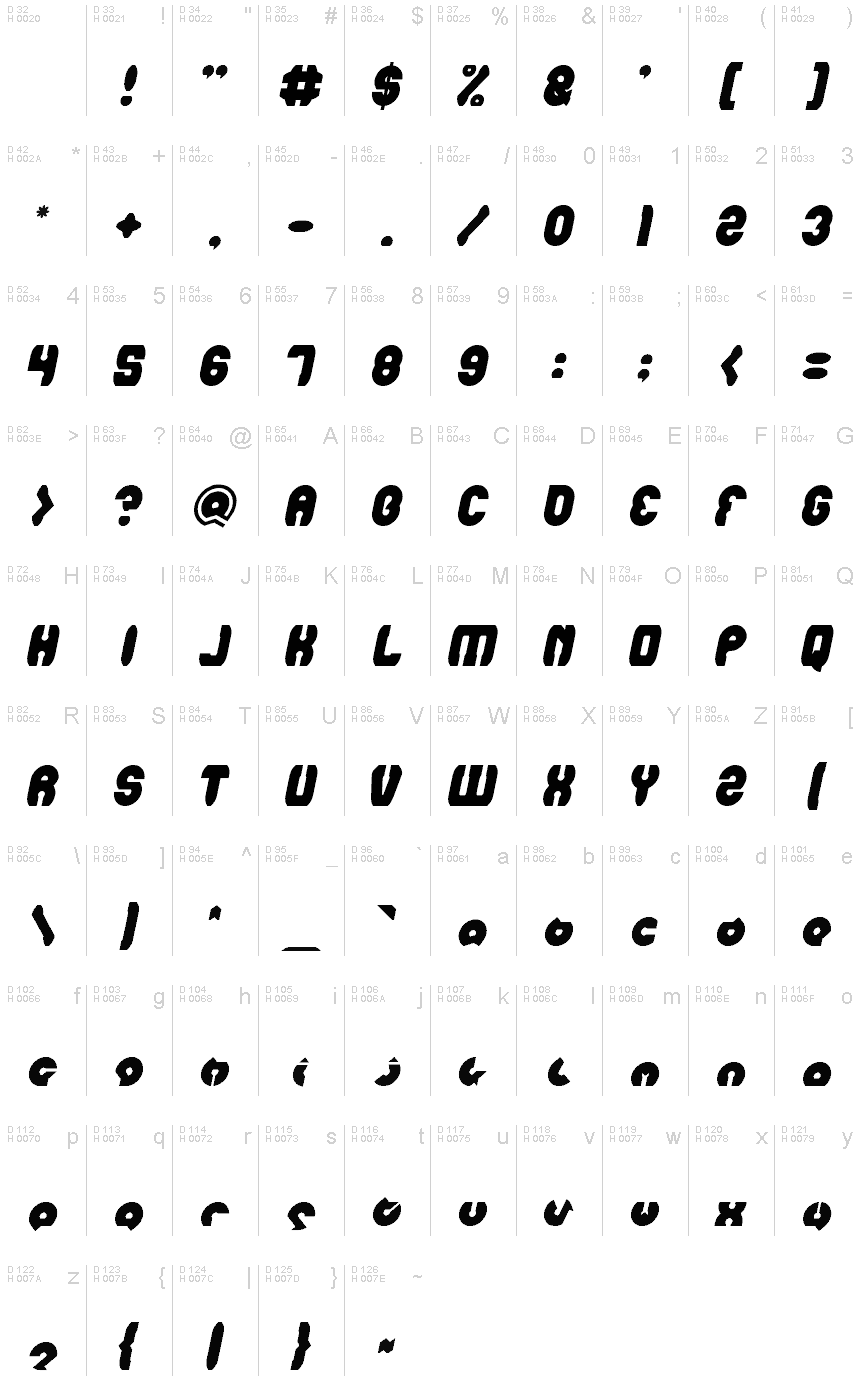
mohr Italic
Mohr Italic is a bold, groovy font that exudes a distinct techno vibe. Designed by Weknow, this display typeface boasts a unique geometric aesthetic, with clean lines and sharp angles that lend it a striking, contemporary feel.
The distinct openings and curves of the letterforms create a dynamic, eye-catching visual rhythm, making Mohr Italic an excellent choice for branding, event posters, or any design application where a bold, futuristic aesthetic is desired.
Its versatility allows it to seamlessly transition between digital and print mediums, ensuring a consistent, impactful visual presence across various touchpoints.